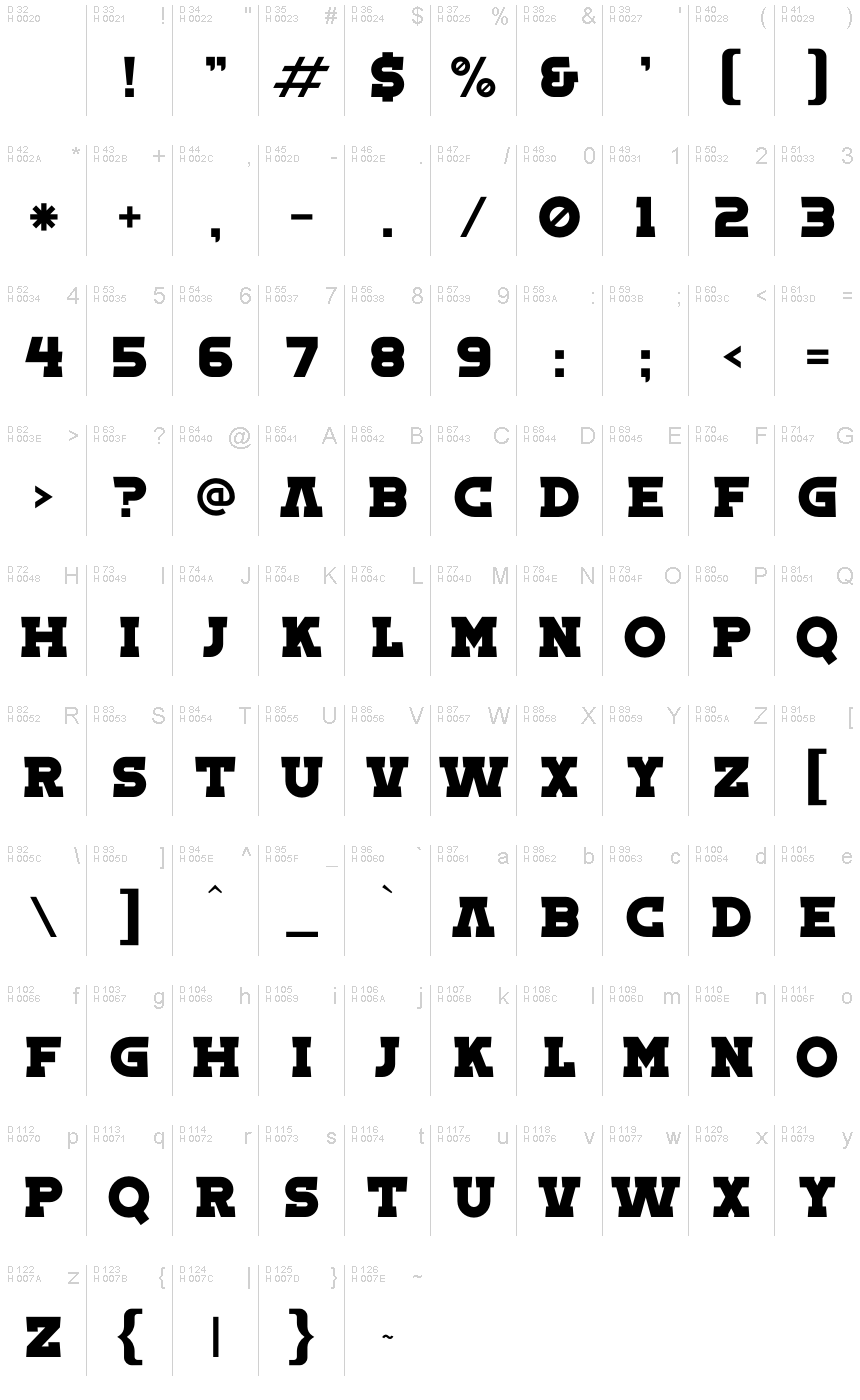
Toma Sunny
Toma Sunny font by Storytype Studio is a bold slab serif combining retro-inspired styles and modern aesthetics. Its geometric appearance, strong presence, and industrial feel make it perfect to use in designs where visual impact matters. Consisting of bold shapes, the free font can be used for either titles or secondary texts with slightly longer lines.
The first project ideas that come to mind are headlines, movie posters, business cards, branding material, packaging designs (like food boxes or coffee packages), website pages for restaurants or stores with an illustrative approach etc. Feel free to investigate other usage possibilities since versatile fonts like this one often have hidden potentials.